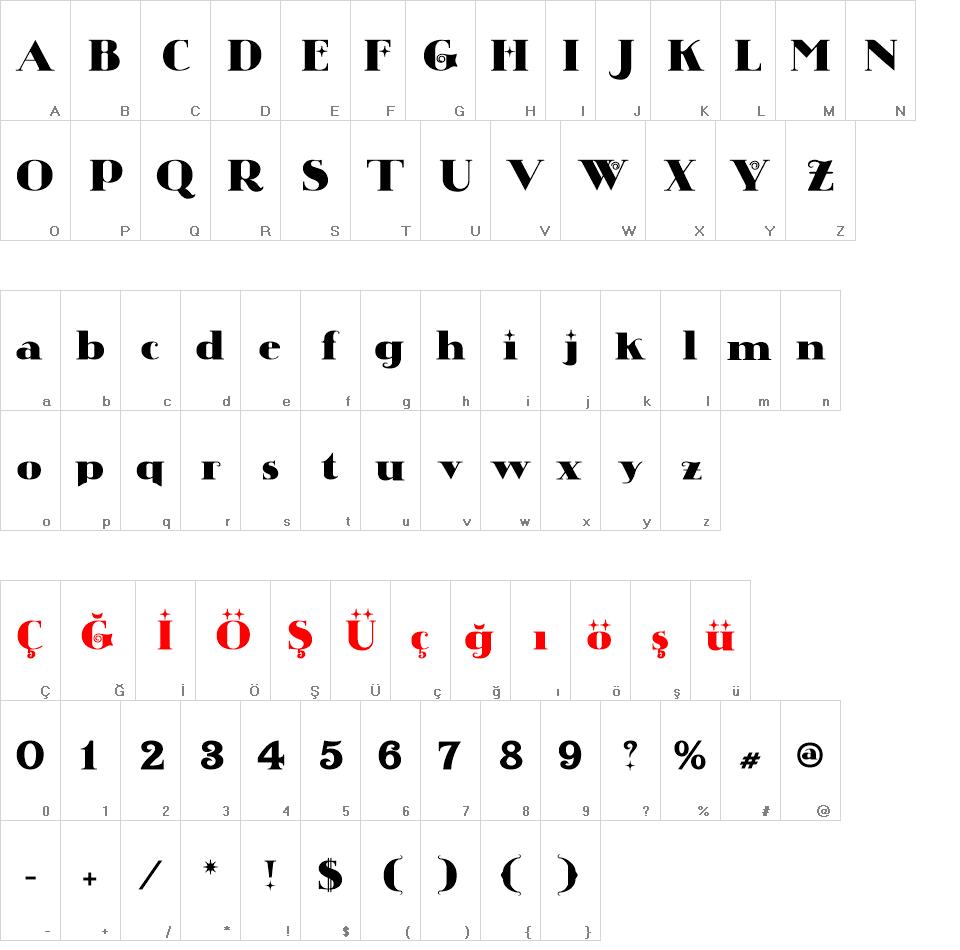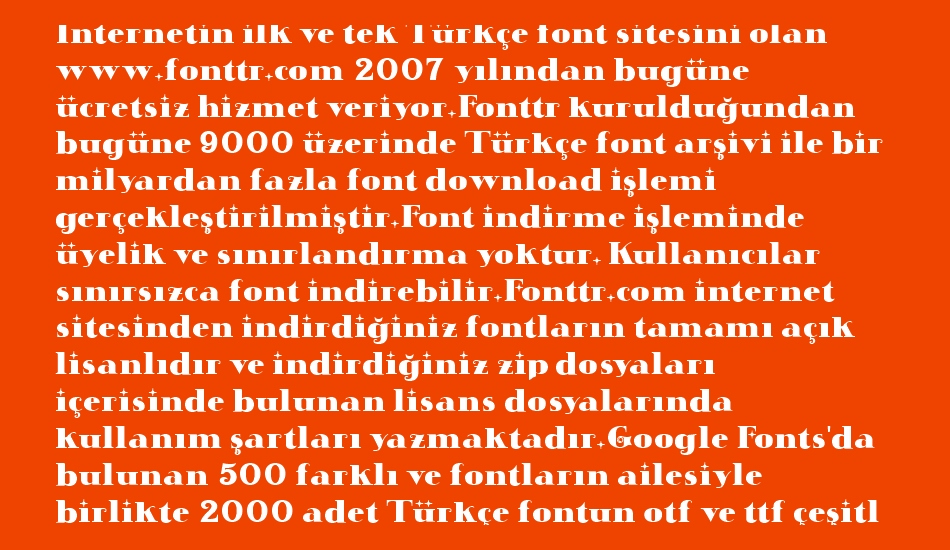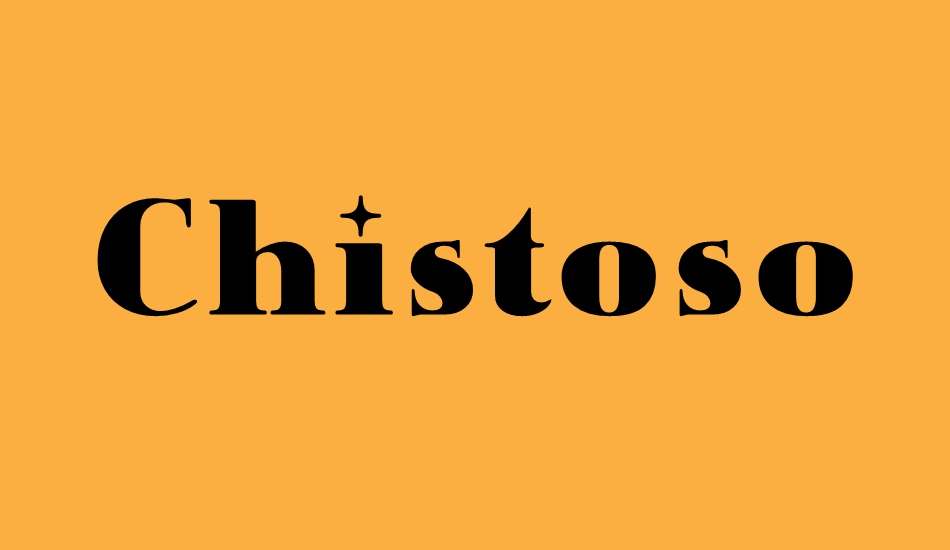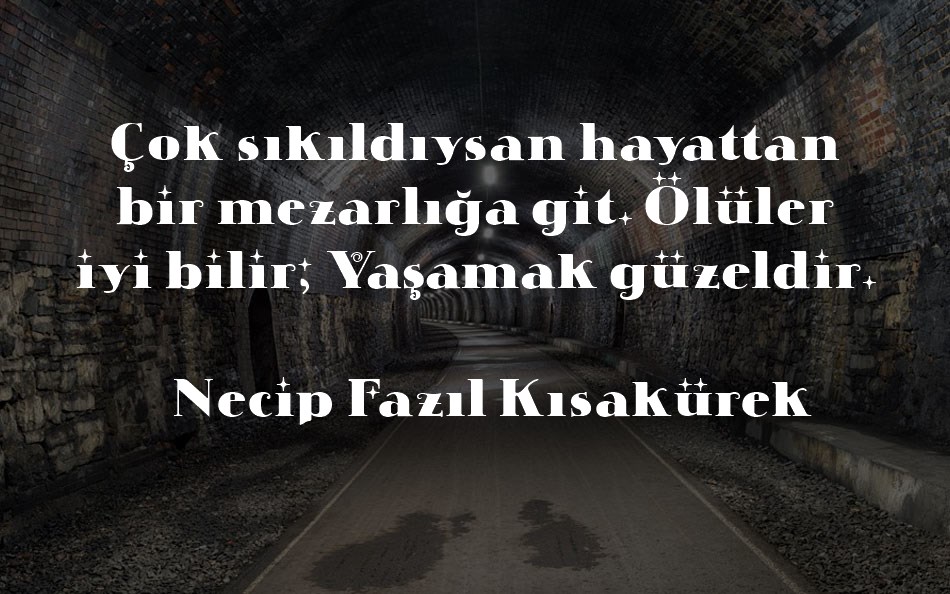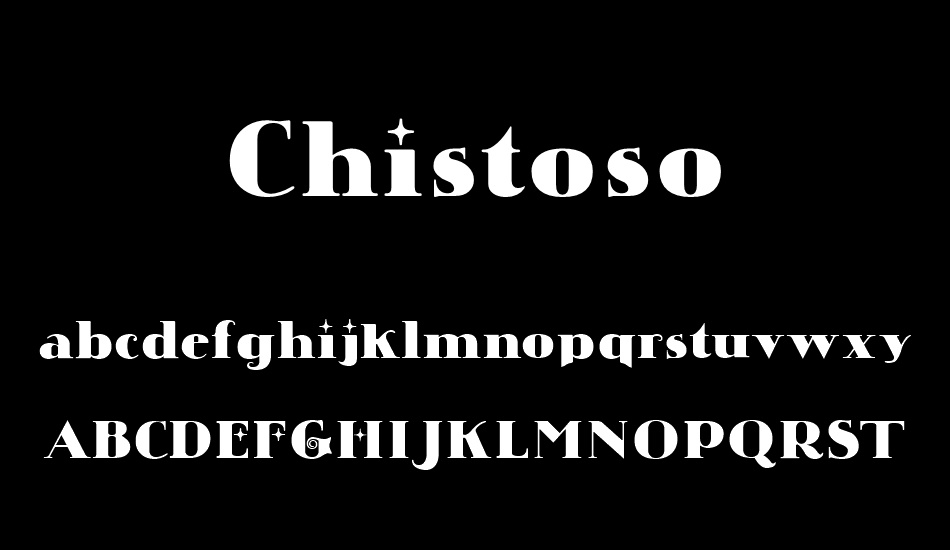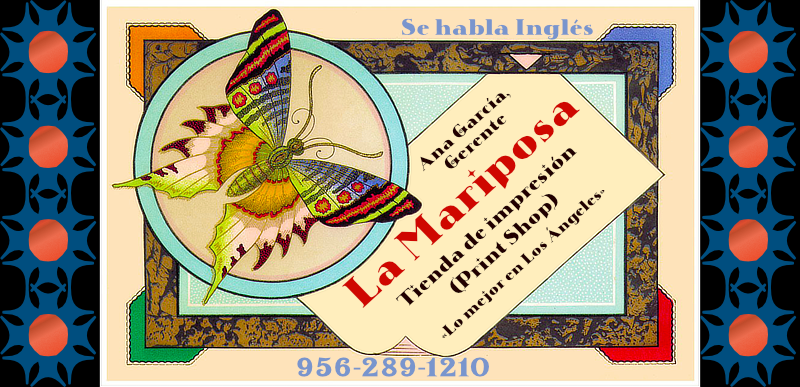
Chistoso font
Chistoso (Spanish for “funny, amusing, witty”) is my digital revival (completely redrawn) of “Majestic” by Julius E. F. Gipkens (1883 – 1968). Its original metal type version was found in Hauptprobe in gedrängter Form der bauerschen Giesserei Frankfurt am Main. No copyright date is provided, but this foundry was established in 1837 according to the title page. However, page 5 states that the Bayern Foundry won the Weltausstellung Brüssel 1910 Grand Prix. Majestic was published some time after that date. As far as I can determine, this font was in the public domain.